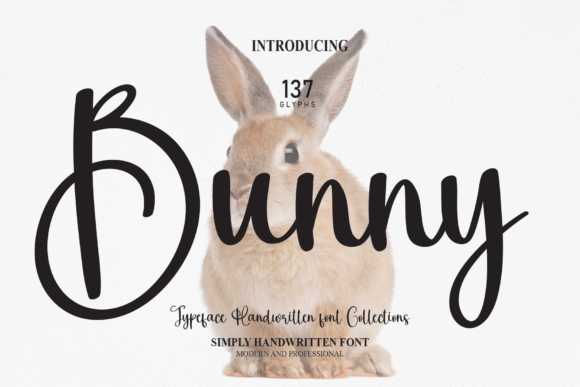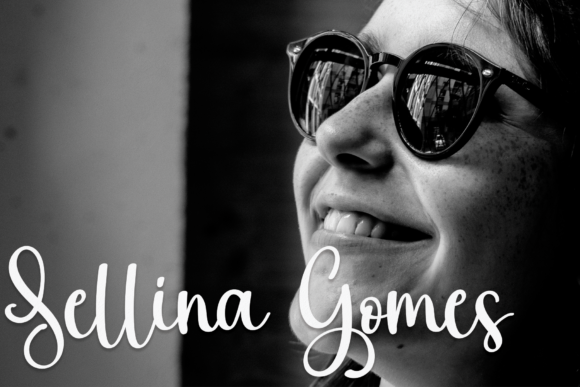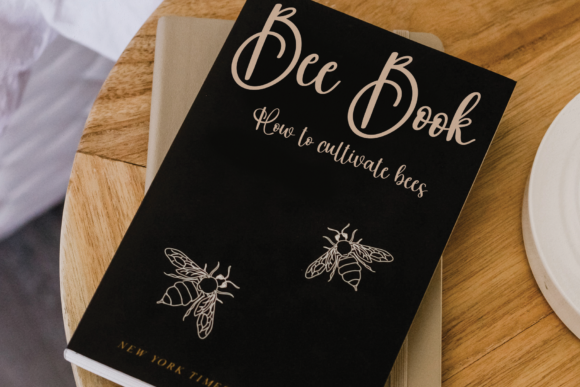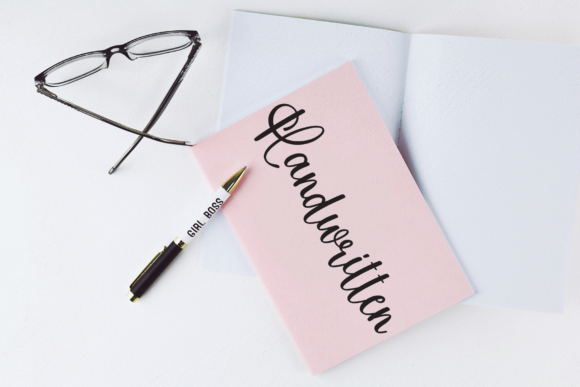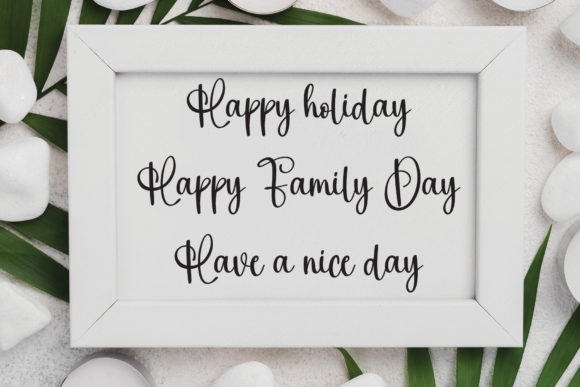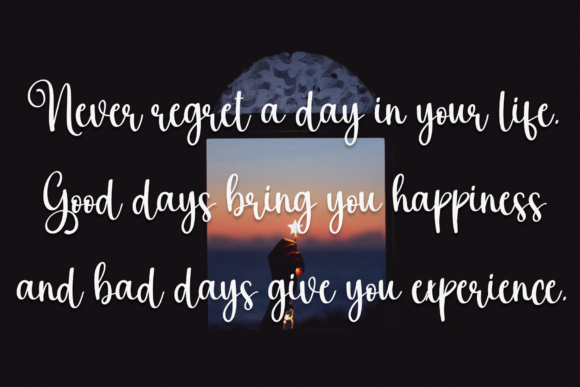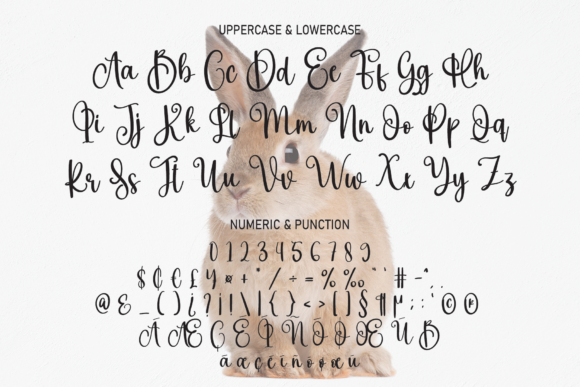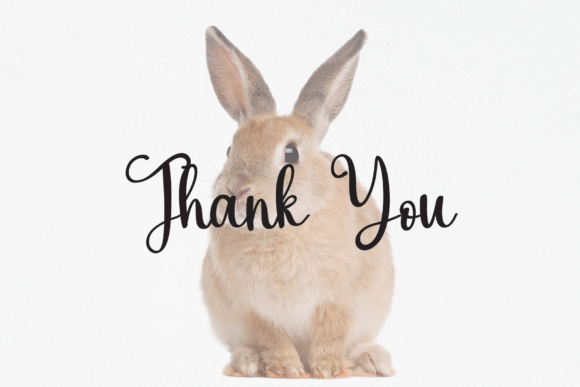
Bunny Font
About Bunny Font
Bunny is an exquisite and refined script font that exudes a sense of fashion and delicacy. With its graceful and flowing letterforms, Bunny is perfectly suited for a wide range of design projects, making it a versatile choice for various creative endeavors.
The font’s inherent elegance and style make it a great fit for logos and branding projects. Whether you’re creating a high-end fashion brand, a luxurious beauty line, or an upscale boutique, Bunny’s sophisticated script adds a touch of class and refinement to your visual identity.
For labels and packaging, Bunny’s delicate script brings a sense of charm and allure. It can enhance the look of product labels, giving them a handcrafted and artisanal feel. Whether you’re designing for cosmetics, gourmet foods, or specialty products, Bunny’s script adds an element of luxury to your packaging.
In photography, Bunny’s graceful curves and flowing lines can serve as a complementary element to watermark your images. Its subtle presence enhances the aesthetics of your photos while maintaining a professional and elegant look.
Special events, such as weddings and celebrations, can benefit from Bunny’s script for invitations, place cards, and other stationery. Its beautiful script taste adds a romantic and personalized touch, setting the tone for an unforgettable occasion.
Watermarks on digital content, like social media posts or online portfolios, can be elegantly integrated using Bunny’s script. Its refined appearance adds a signature touch to your online presence, making your content stand out and leaving a lasting impression.
The versatility of Bunny extends to a wide array of lovely projects, from quotes and inspirational graphics to greeting cards and more. Its script taste brings a sense of warmth and sophistication to any text, making your designs resonate with audiences on a personal level.
Overall, Bunny is a fashionable and delicate script font that elevates the aesthetic of your projects. Its suitability for logos, branding, labels, photography, special events, and various other creative ventures ensures that Bunny remains a valuable asset in your design toolkit, capable of infusing elegance and charm into every design it graces.